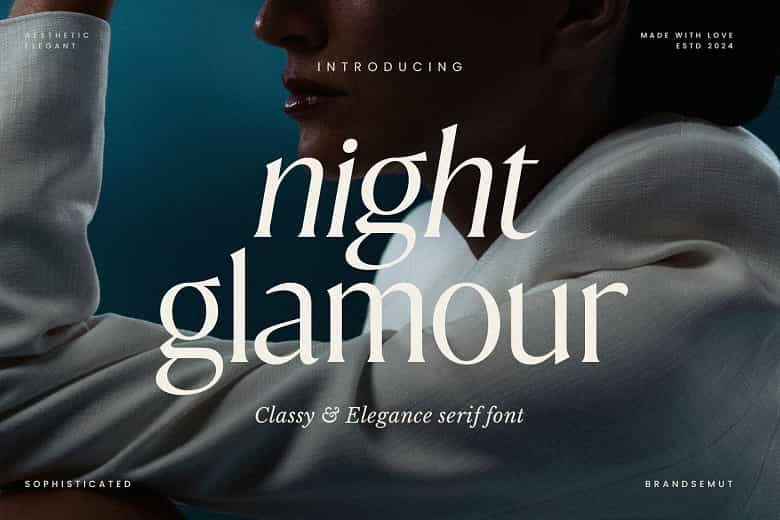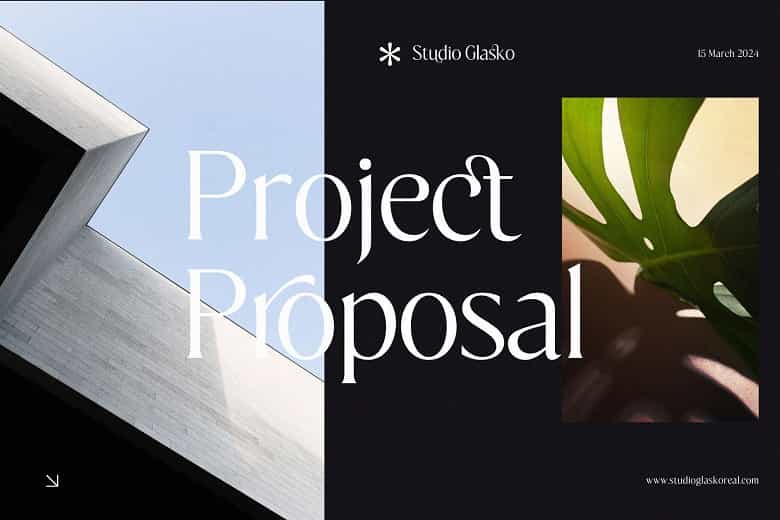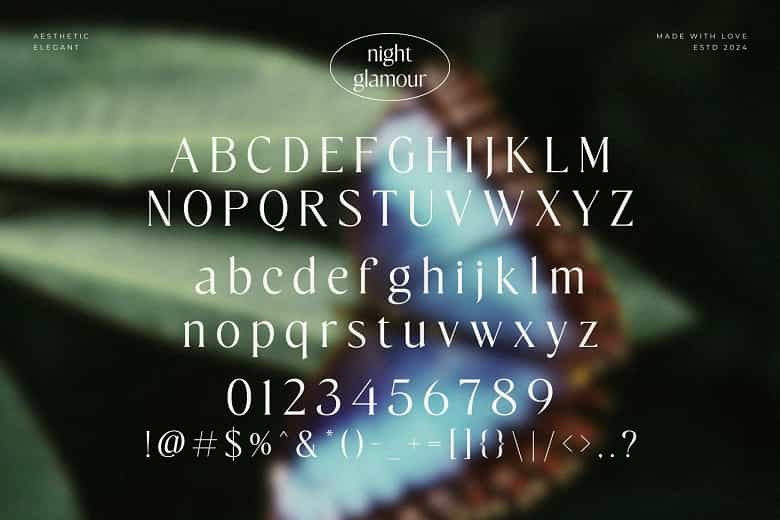
Night Glamour is a trendy display serif font that is perfect for using in headings, logos, brands, magazines, packaging, and invitations. Night Glamour is loaded with Ligature and many Alternates and has clean lines and smooth curves that add a classy look to any project.